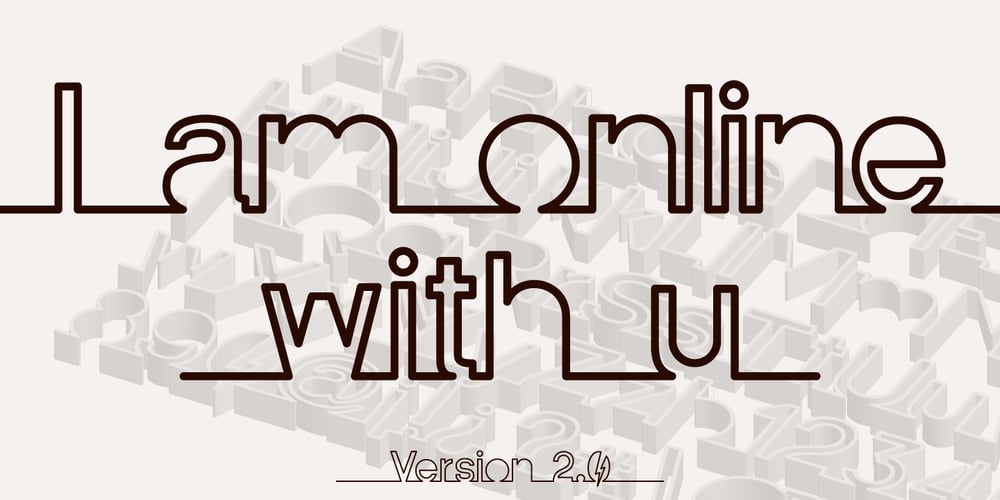
I am online with u Font Family was designed by Gilberto Moya Perona and published by Pisto Casero. I am online with u contains 7 styles and family package options. The “Line” style of “I am online with u” font family was inspired by the idea of the digital connection of two people living in different parts of the world. Later on this idea was expanded, including different styles such as “Dashed” or “Dotted”, which built the font family taking the initial idea to another level and keeping the connectivity concept alive. This typeface works best when used in big sizes.